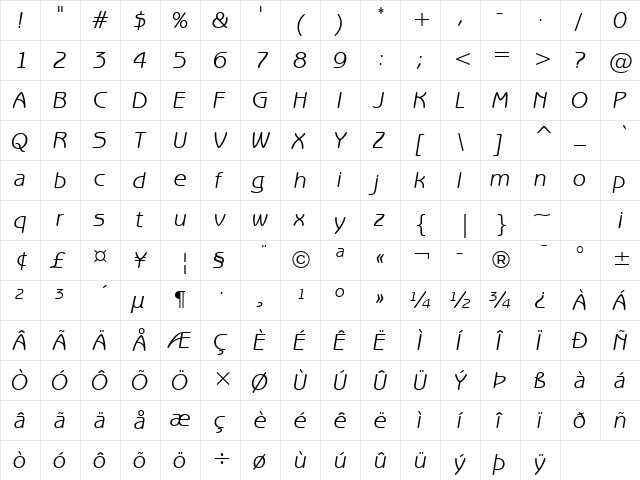
BenguiatGot Bk BT Book Italic
Design Context for BenguiatGot Bk BT Typeface
BenguiatGot Bk BT offers clean, dependable letterforms without strong stylistic allegiance, making it a practical choice for designers who need flexibility. The dynamic lean of this cut emphasises speed and emphasis in any layout.
Pro Tip: Use BenguiatGot Bk BT for emphasis, pull quotes, and subheadings where its slanted energy can add rhythm to the layout.